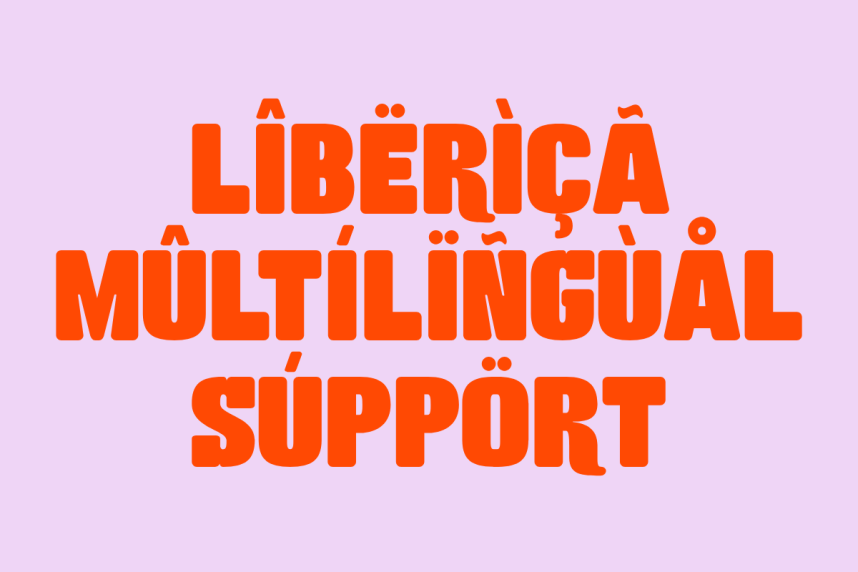
Liberica Font, which was designed by Ardian Usman Laana and released in 2016, belongs to the straight-edged display typeface family. This font was created by the Jakarta, Indonesia-based designer as a free typeface, reflecting a clean, geometric approach with sharp, defined edges.
The Liberica typeface features a straight-edged aesthetic that gives it a bold, modern character. It supports uppercase and lowercase letters, numerals, punctuation, and basic Latin characters.
| Name | Liberica Font |
| Designer | Ardian Usman Laana |
| Foundry | Independent release |
| Type | Display |
| Date Released | 2016 |